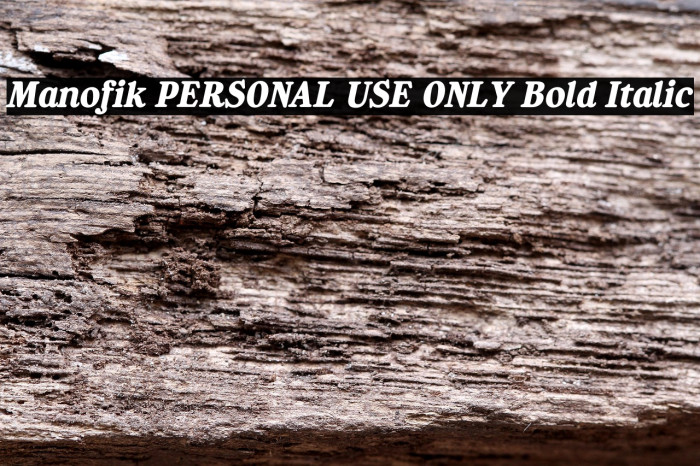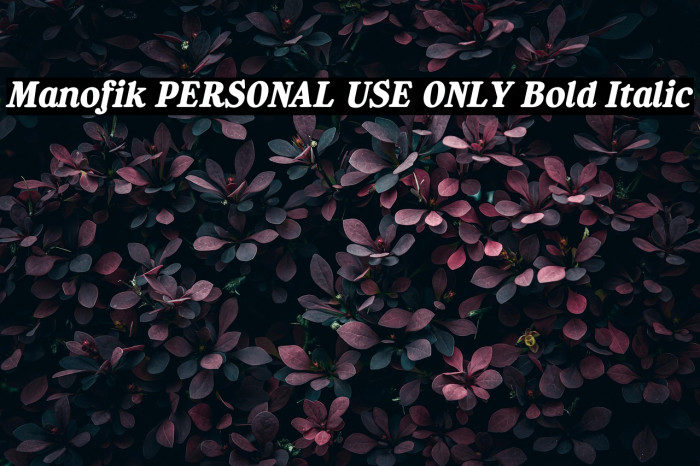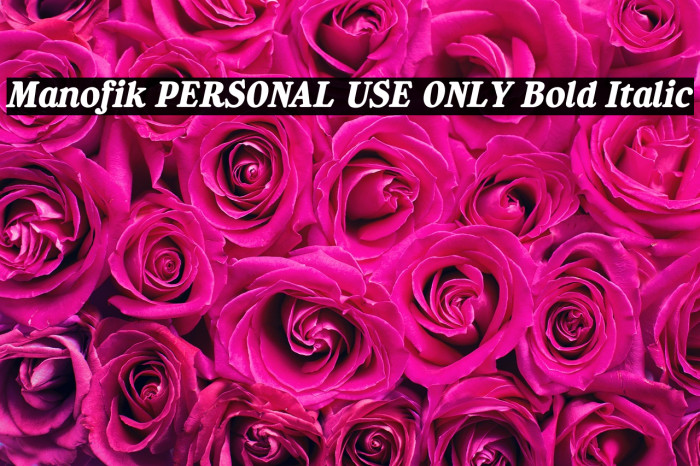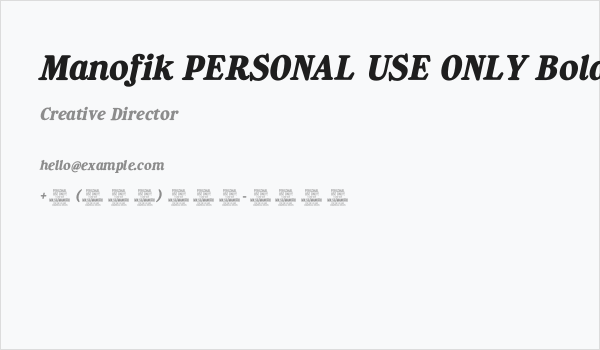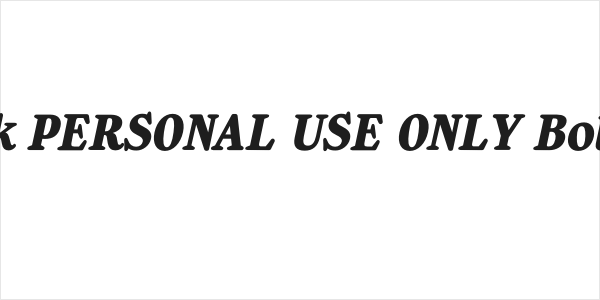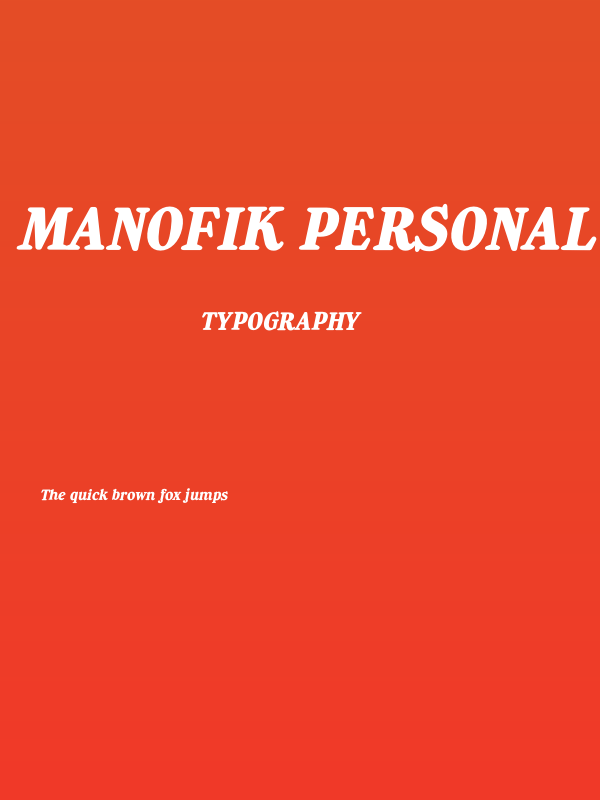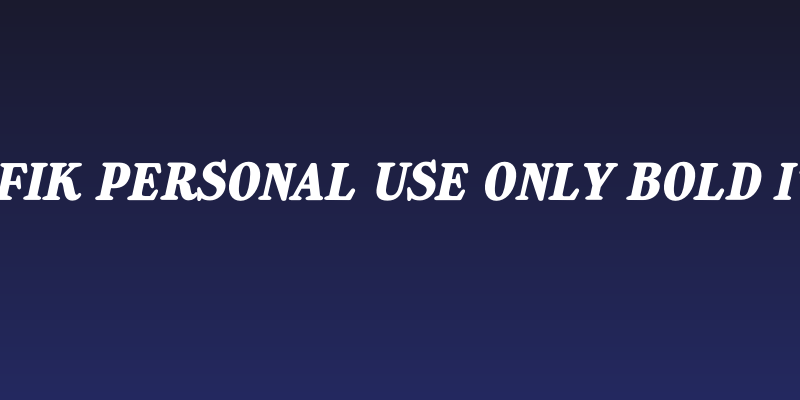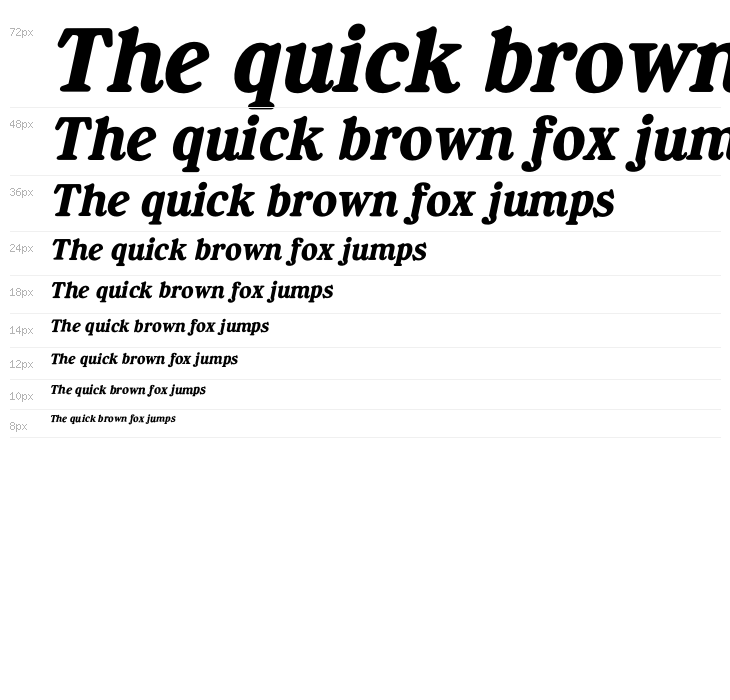
Manofik PERSONAL USE ONLY Bold Italic Font
Manofik PERSONAL USE ONLY Bold Italic Description
This font exhibits a bold and italic style, characterized by its strong presence and dynamic slant. The uppercase letters are robust and commanding, while the lowercase letters maintain a consistent flow with a slight cursive influence. The numerals are clear and well-defined, complementing the overall bold aesthetic. Special characters are designed with the same boldness, ensuring uniformity across all glyphs. The font's italic nature adds a sense of movement and elegance, making it suitable for impactful designs.